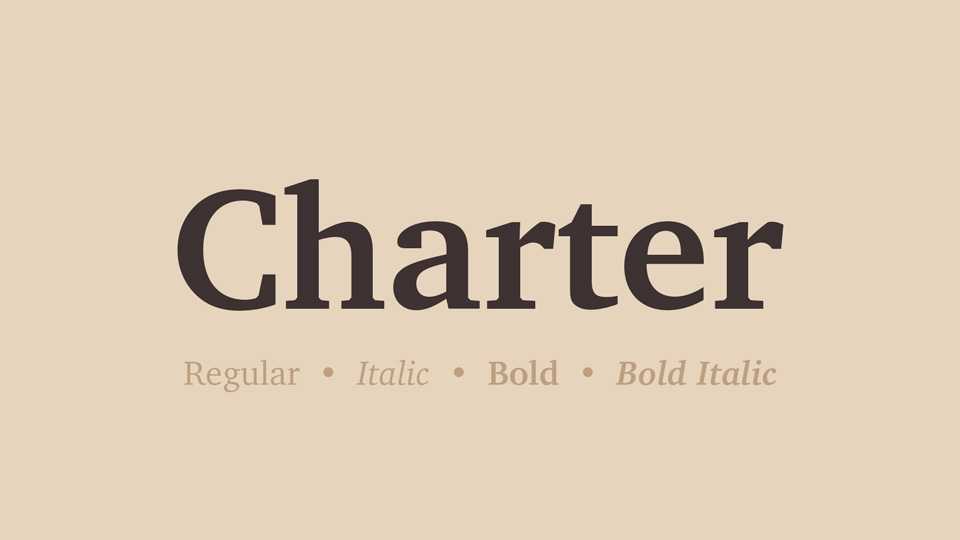
Download Charter typeface, a transitional serif font family in two weights with Italics designed by Matthew Carter in 1987 for Bitstream Inc. The font based on Pierre-Simon Fournier’s characters, originating from the 18th century.
Designer: Matthew Carter